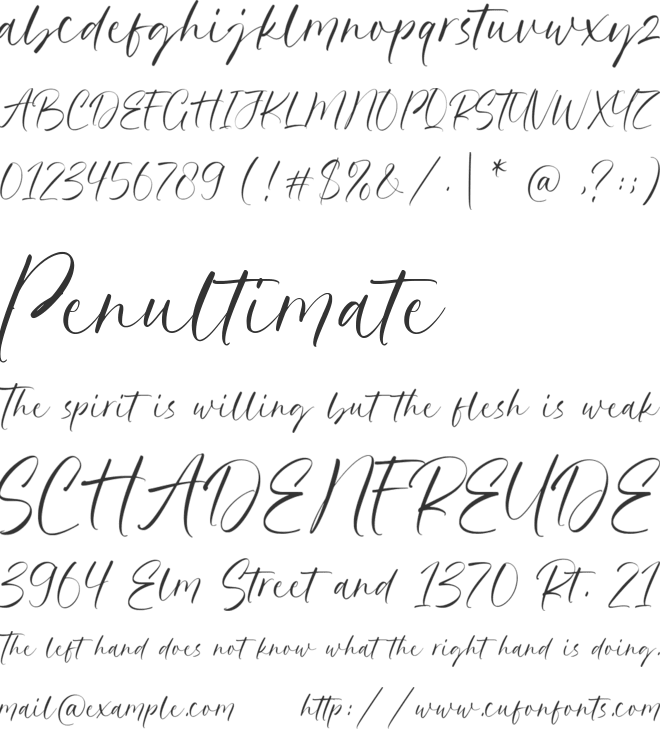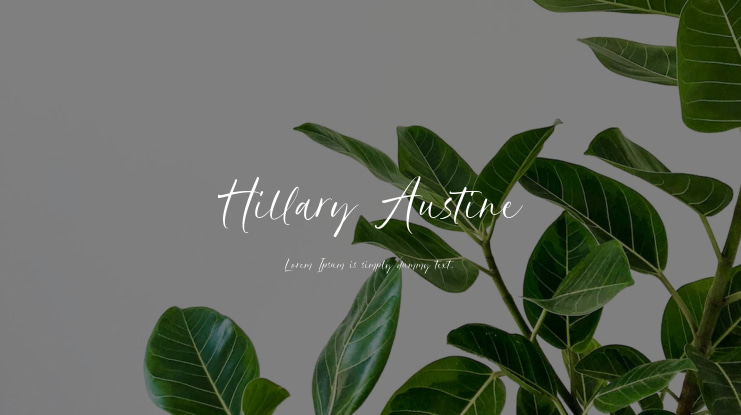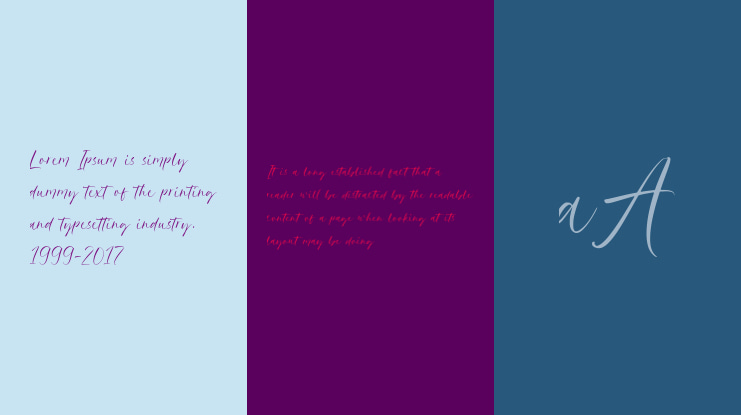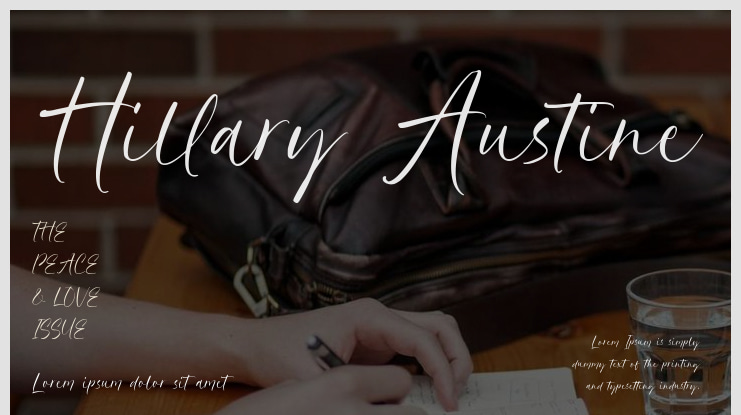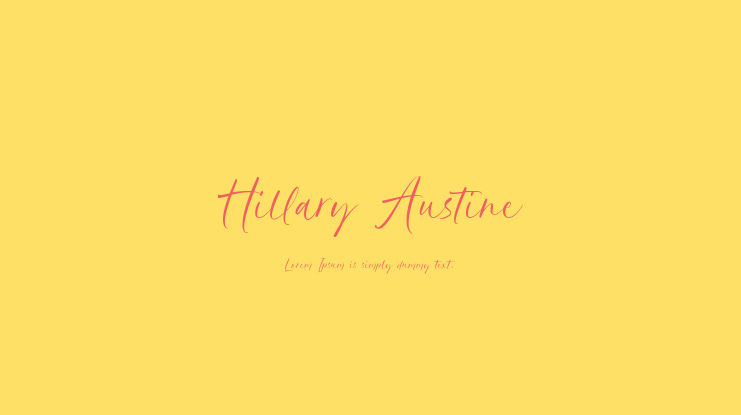
Hillary Austine Font
Introducing the Hillary Austine font by Balpirick Studio.
This Modern Calligraphy Font is perfect for adding a personal touch to your design projects. Its natural and organic feel, combined with its unique character, makes it a great choice.
Crafted with care and attention to detail, the Hillary Austine font is incredibly versatile. It can be used for various design projects, including logos, branding, invitations, and more. Its modern and handwritten style gives it a special character that is guaranteed to leave an impact.